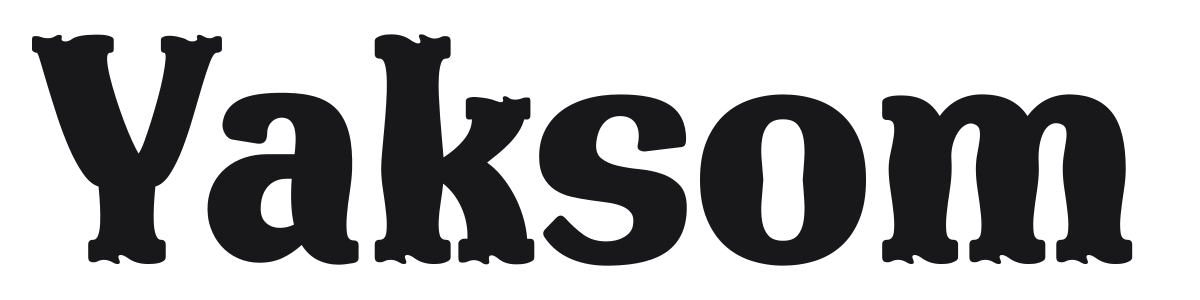
Yaksom
Yaksom is a heavy slab-serif with wide proportions, thick bracketed serifs, and subtle notching that gives it a hand-carved, letterpress quality. The near-monoweight strokes and rough details root it firmly in 19th-century wood type and poster printing traditions. It carries that era's boldness without feeling like a pastiche.